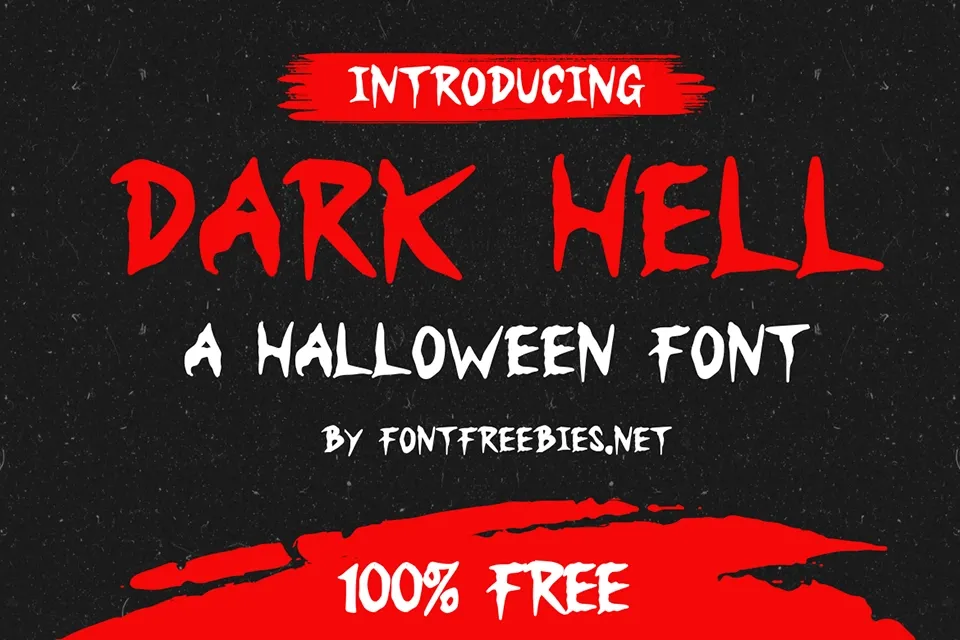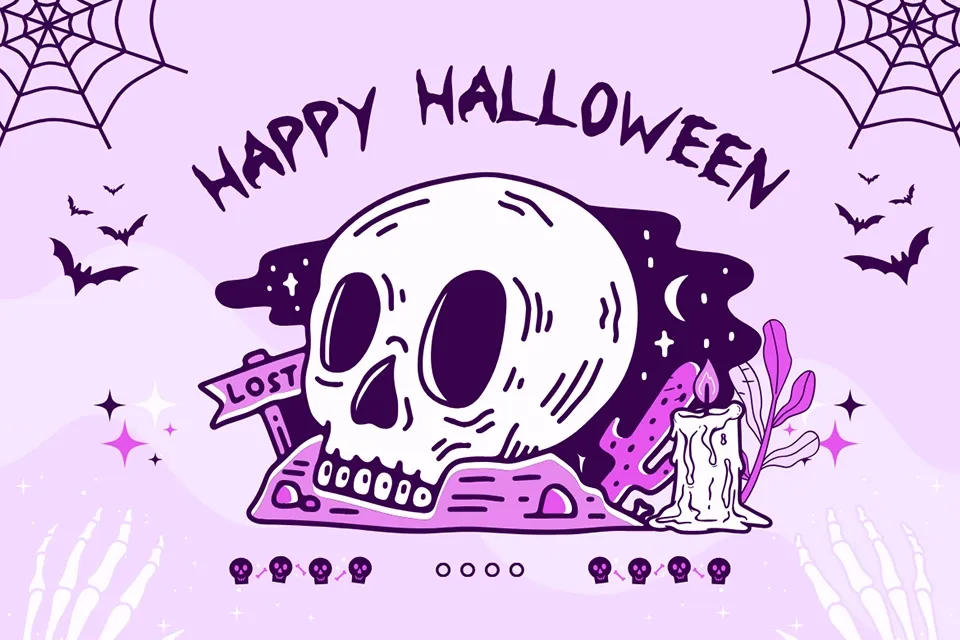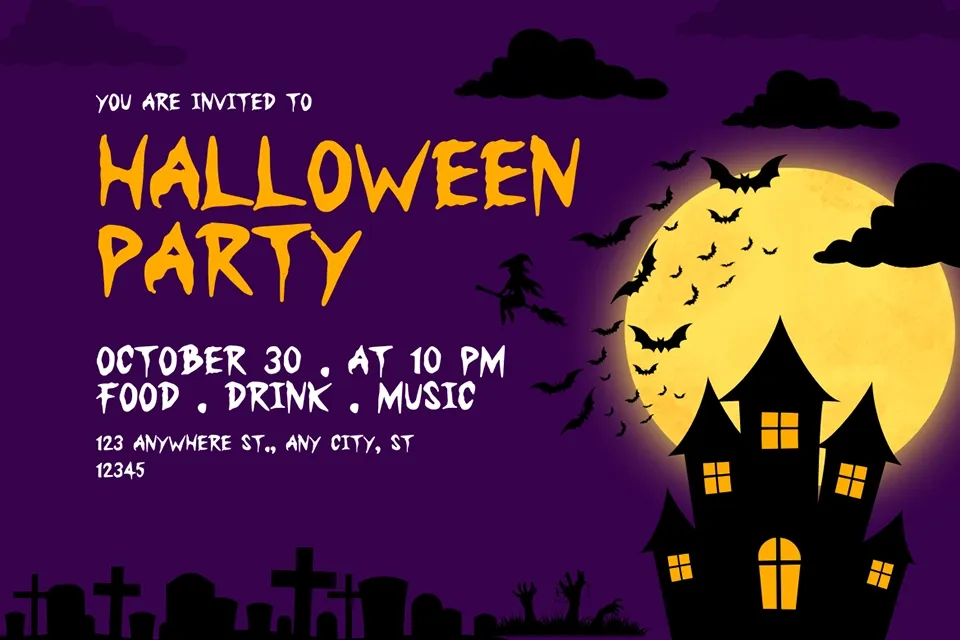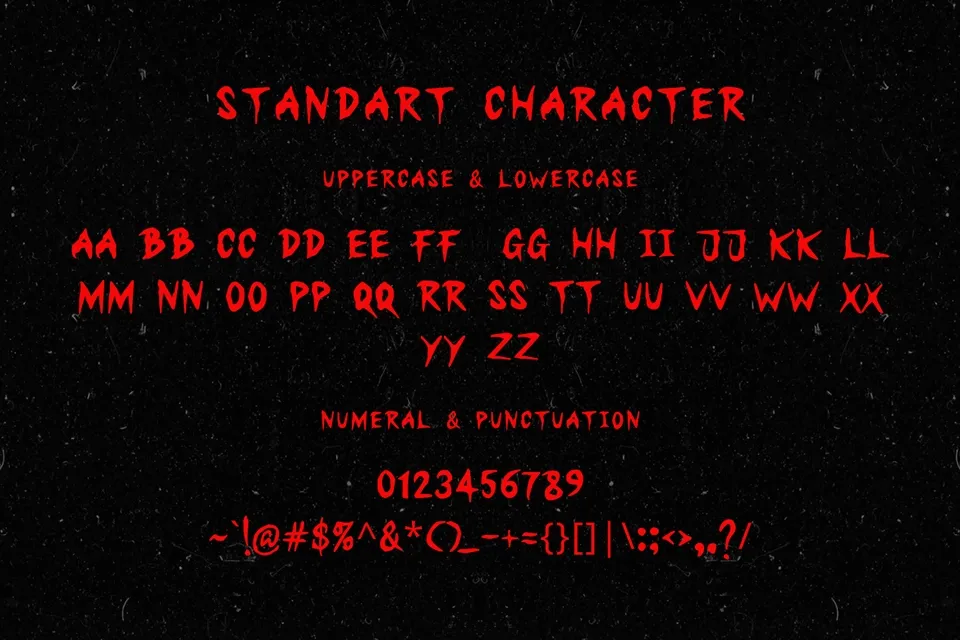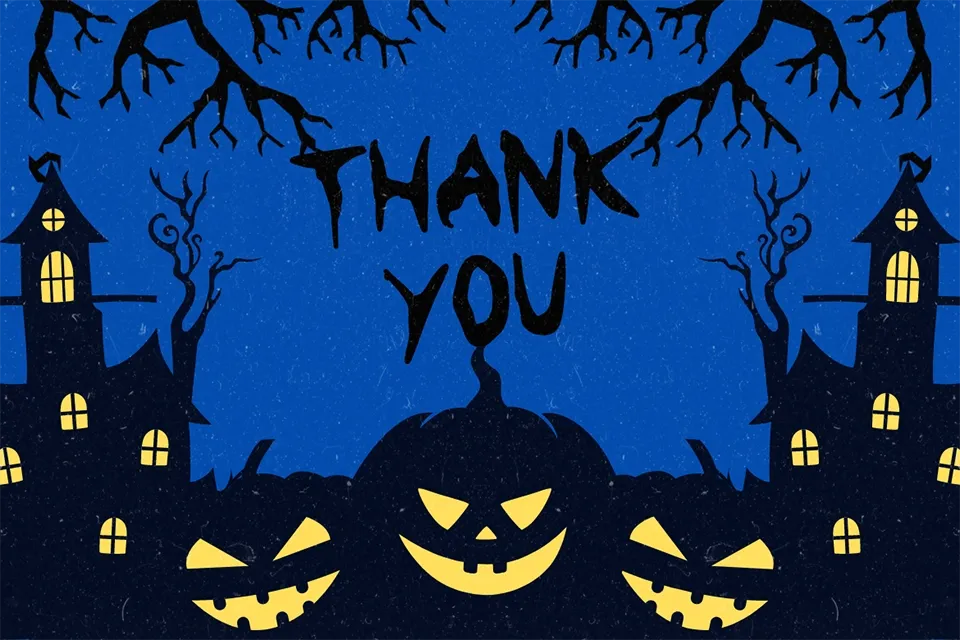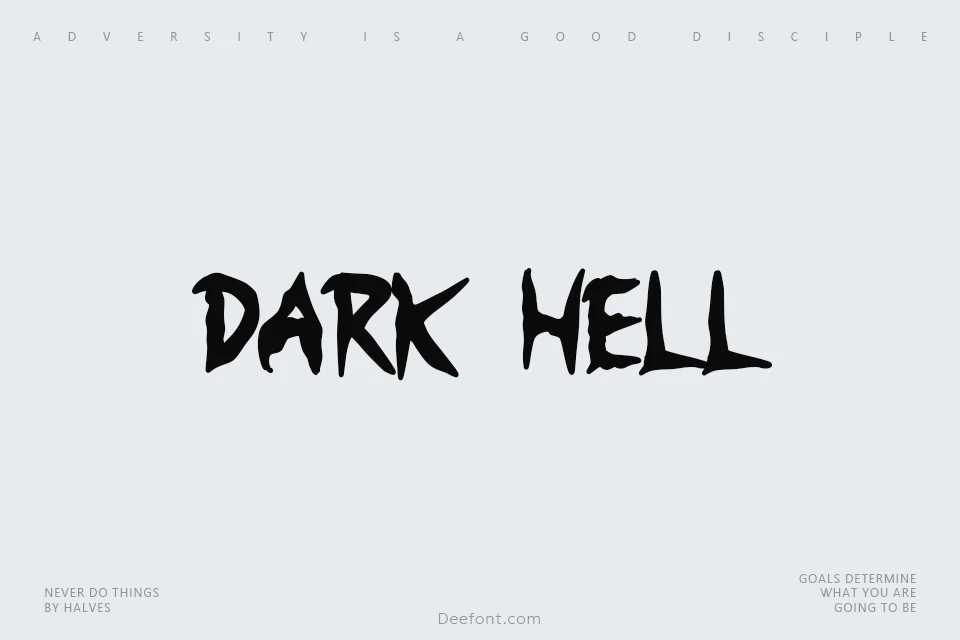
Dark Hell Font
Dark Hell Font is a bold and eerie typeface designed specifically for Halloween and horror-themed projects. Its jagged, uneven letterforms and sharp edges evoke a sense of dread and mystery, making it perfect for spooky posters, haunted house flyers, creepy invitations, or horror movie titles. The font’s hand-drawn style adds a raw and unsettling aesthetic, enhancing its dark and ominous vibe. With its striking appearance and dramatic flair, Dark Hell Font is an excellent choice for designs that aim to capture the essence of fear and excitement during Halloween or other gothic-inspired events. It’s 100% free for creative use.